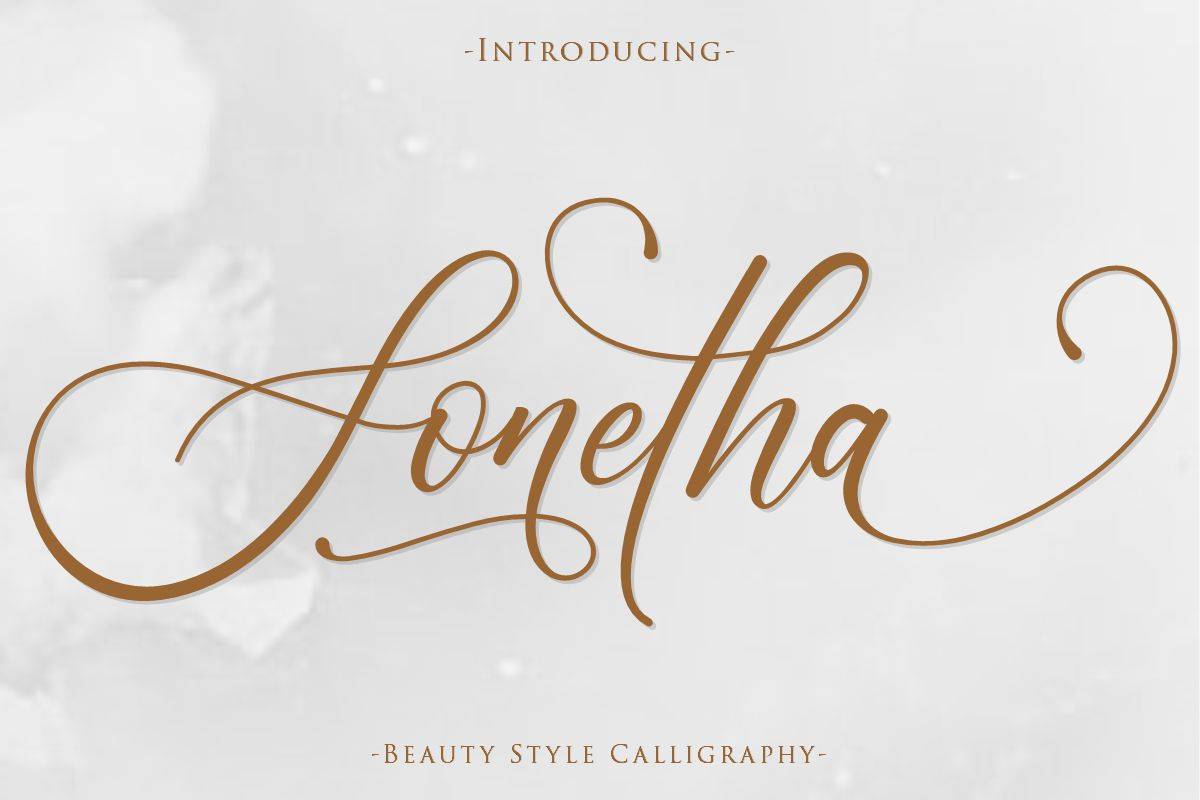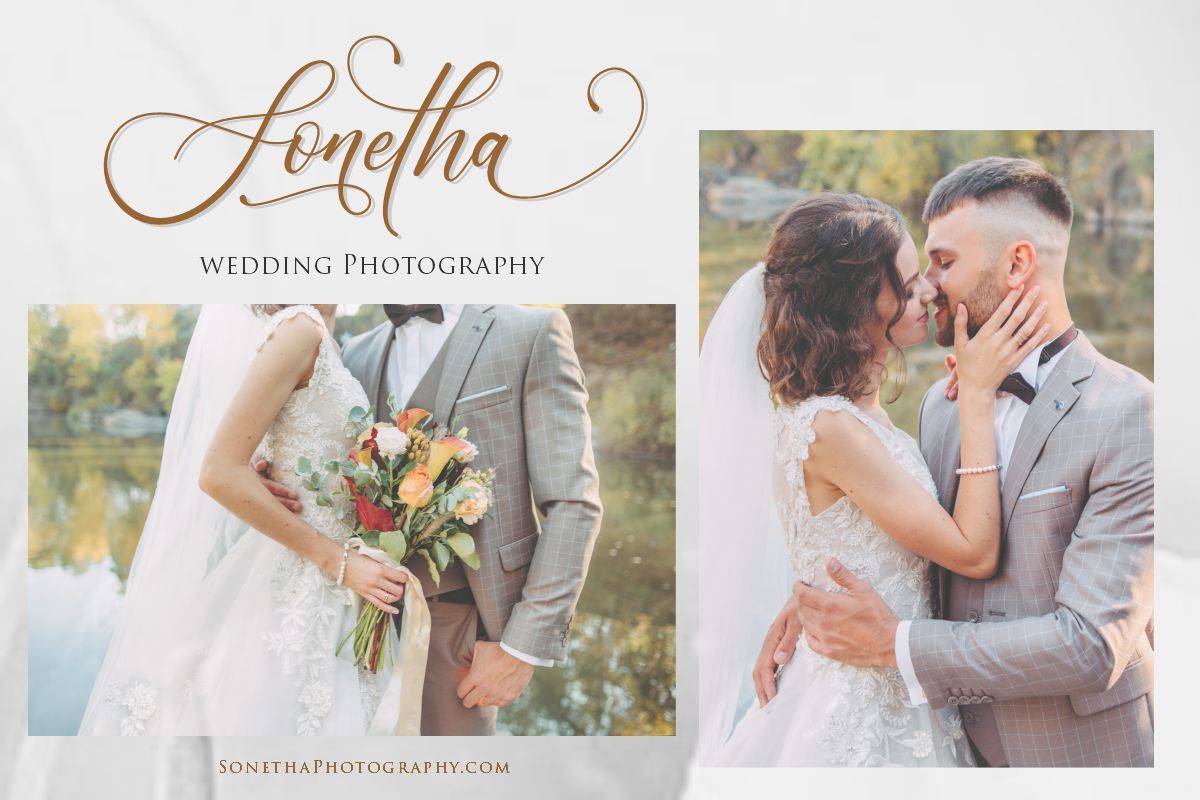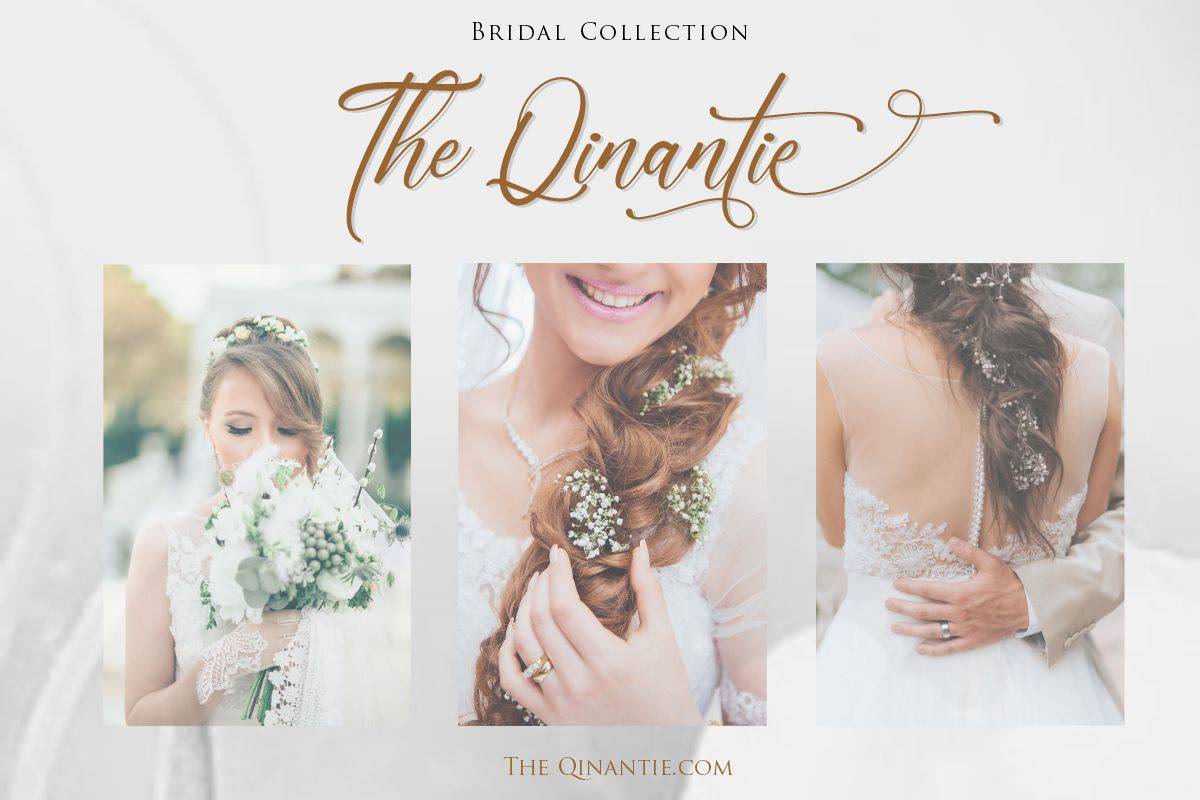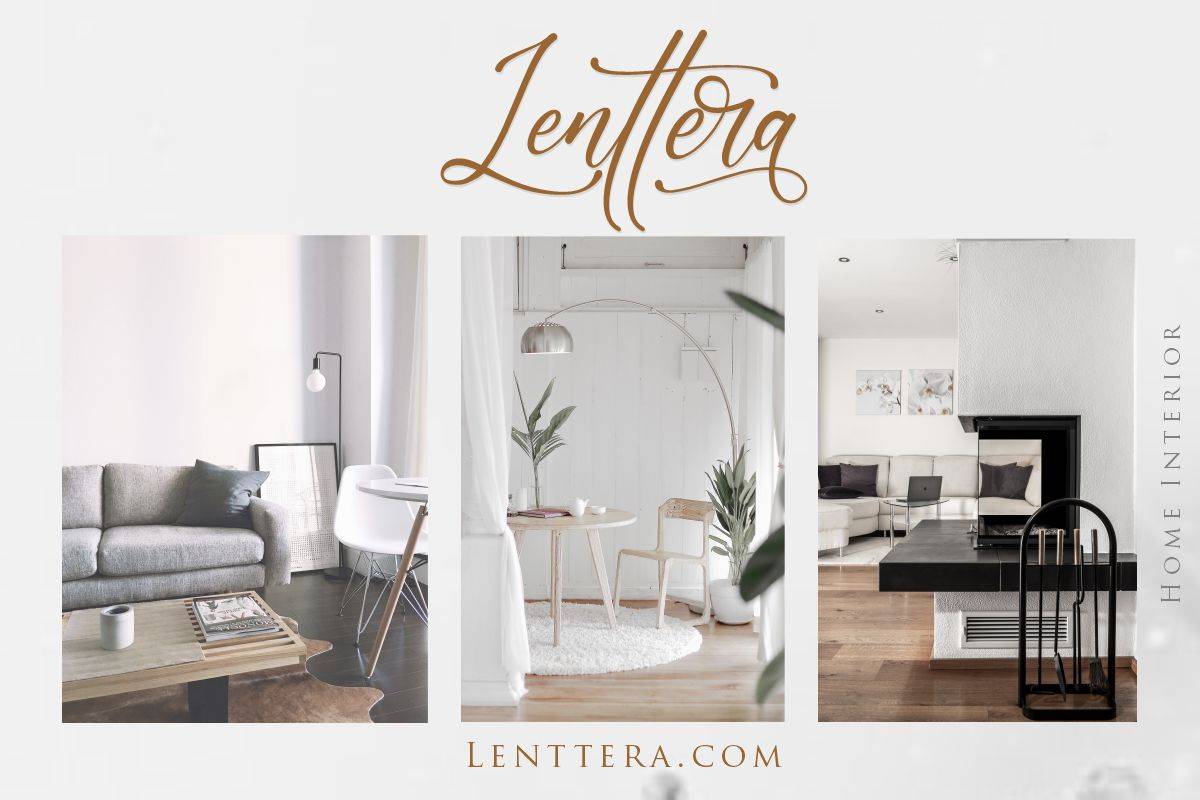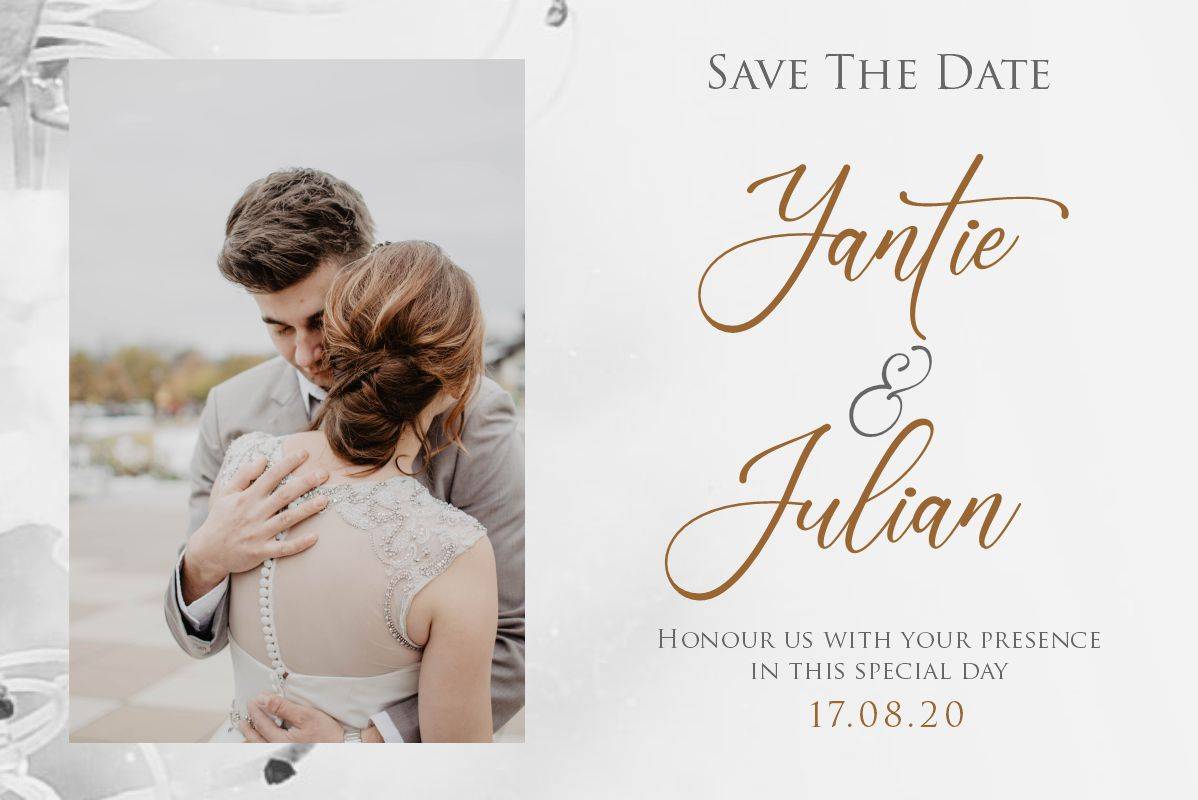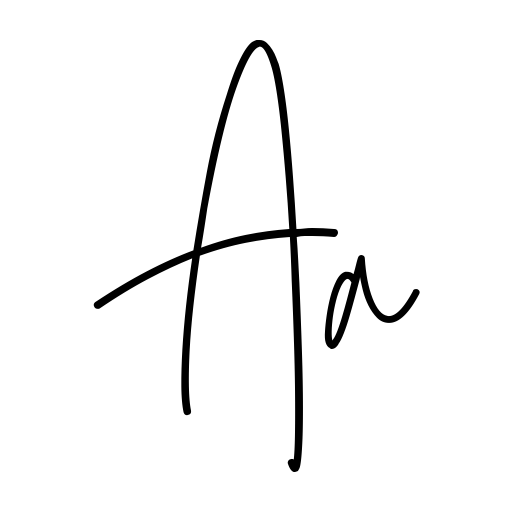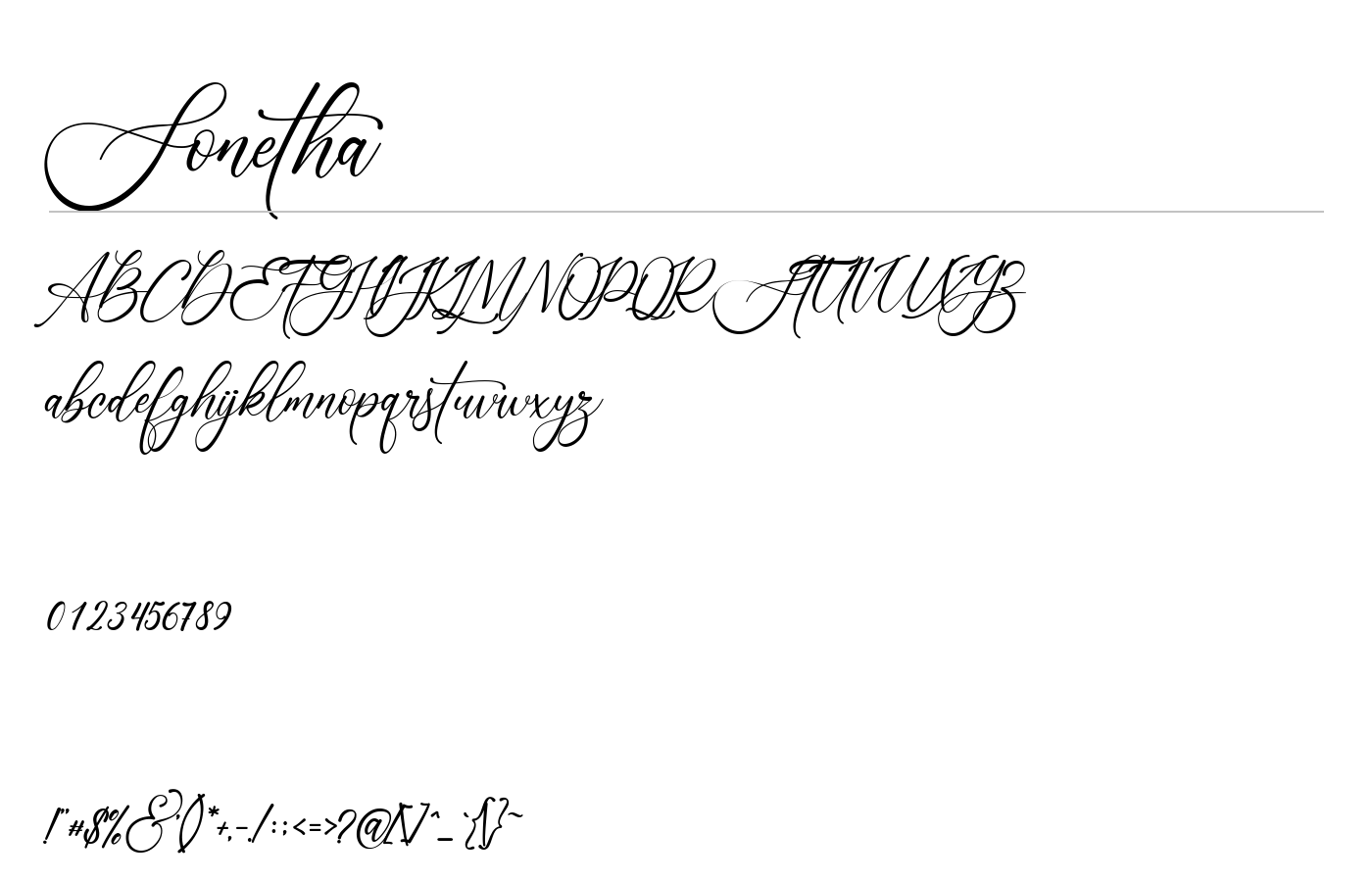
Sonetha is an elegant script font characterized by its delicate, flowing strokes and graceful, high-contrast lines that evoke a sophisticated and refined feel. With its intricate swashes and smooth curves, it works beautifully for luxury branding, wedding invitations, and upscale editorial designs where a touch of classic charm and femininity is desired. This font's decorative style shines best in headlines, logos, or accents rather than body text due to its ornate and detailed letterforms.
Sonetha Font
About Sonetha Font
| Font family | Sonetha Font |
| Designer | Gilar Studio |